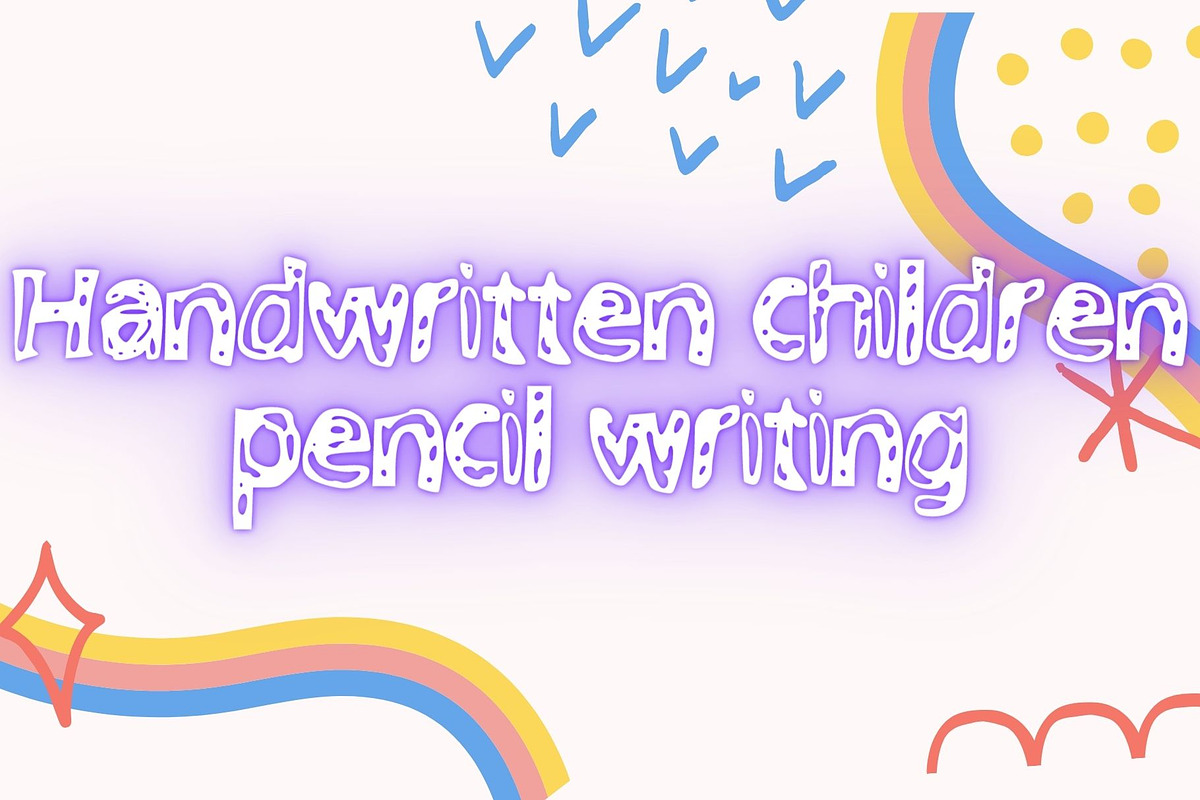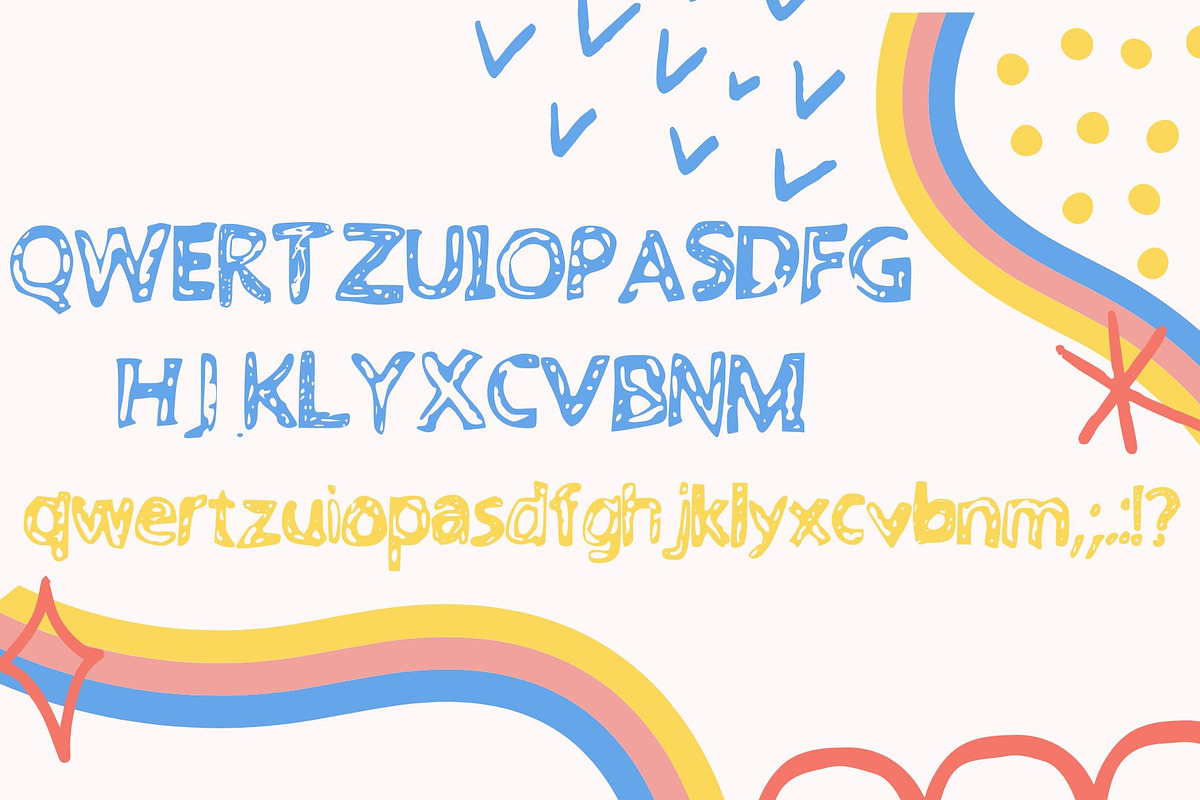
Handwritten children pencil writing
Funny and natural designs,
Ideal for advertising, marketing, invitations, congratulations, social media, web design, for anyone looking for a unique special font.